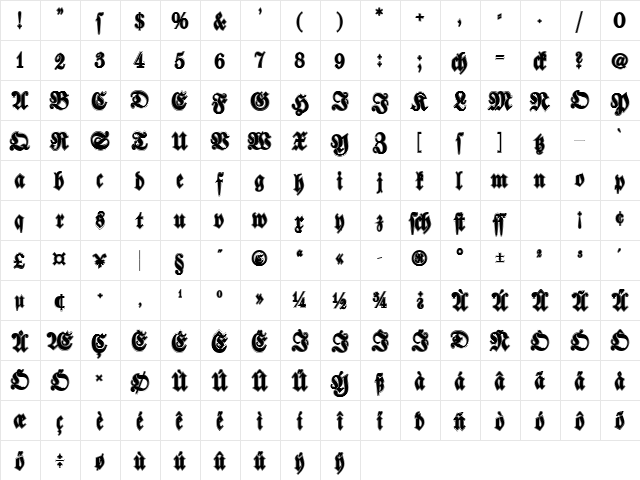
Walbaum-Fraktur Inline Bold
Design Context for Walbaum-Fraktur Inline Typeface
Walbaum-Fraktur Inline draws on the rich tradition of blackletter calligraphy, with dense, angular strokes that evoke medieval manuscripts and old-world craftsmanship. Its bold stroke weight gives it real presence on the page.
Well-suited to band logos, craft beer branding, tattoo lettering, and heritage-themed identities.
Font Pairing: Pair with a clean neutral sans-serif for body copy to let Walbaum-Fraktur Inline's character lead without overwhelming the composition.
Pro Tip: Use Walbaum-Fraktur Inline sparingly at large sizes. Even a single word set in blackletter can define the visual register of an entire design.